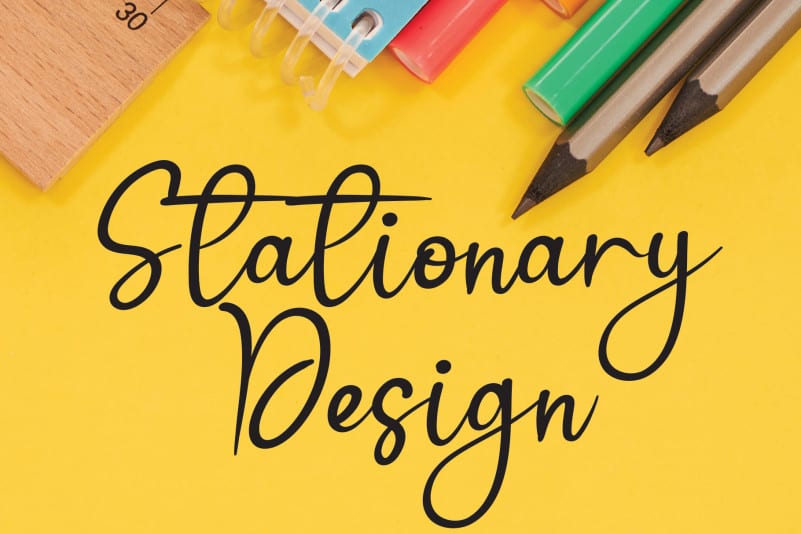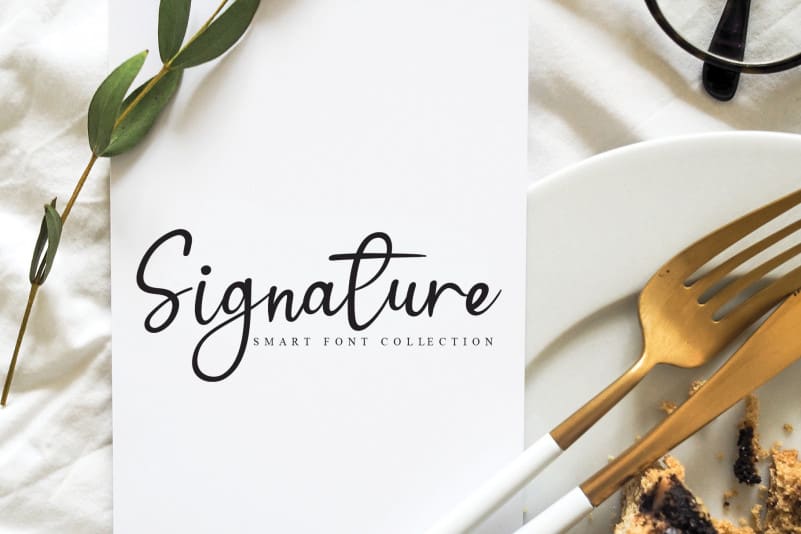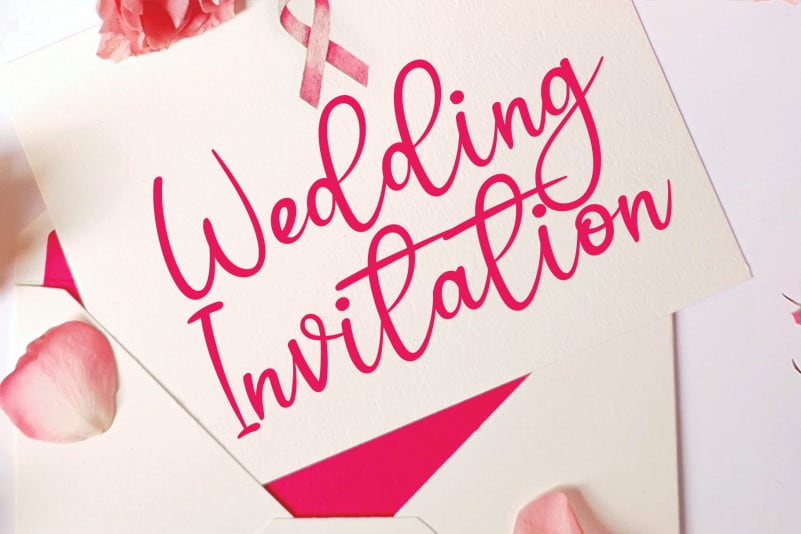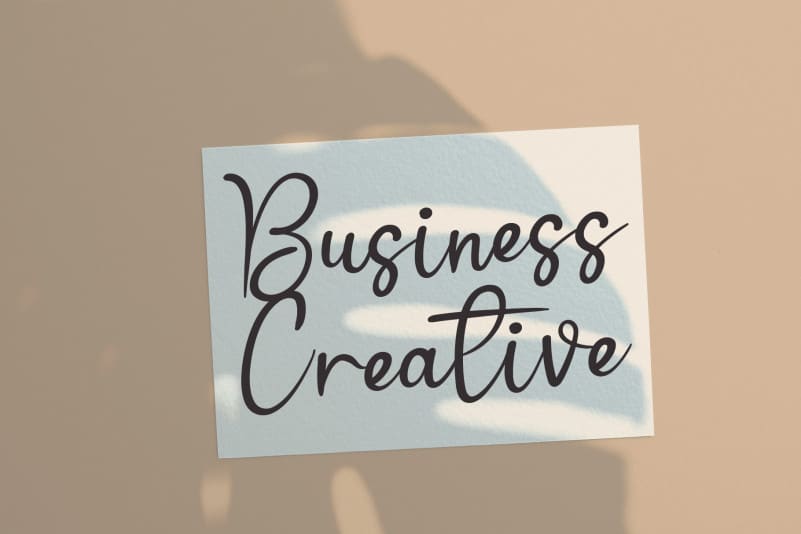
Energetic Valentine Script Font
Introducing Energetic Valentine Script Font. The latest style letters are perfect for wall displays, wedding invitations, social media post logos, advertisements, product packaging, product designs, labels, photography, watermarks, invitations, stationery, and any project that requires taste handwriting.